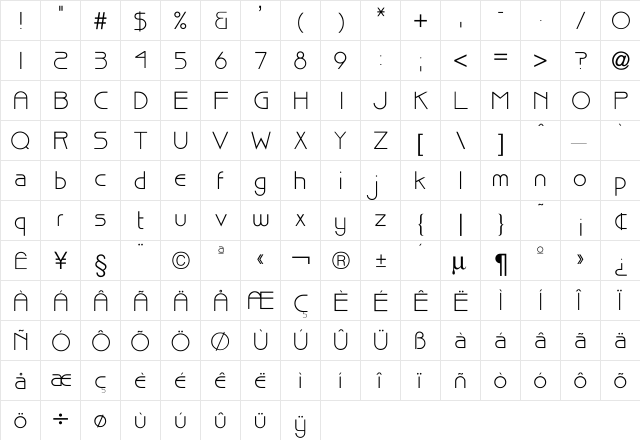
Billuy Regular
Design Context for Billuy Typeface
Billuy takes a measured approach to typography — its balanced proportions and neutral character make it a reliable workhorse for both digital and print work.